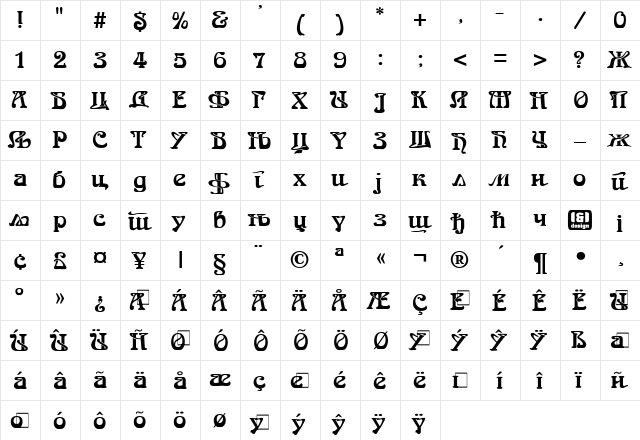
ArnoldBoecklinCIrilica Regular
Design Context for ArnoldBoecklinCIrilica Typeface
ArnoldBoecklinCIrilica is a composed and adaptable typeface that performs quietly and consistently across a wide range of design contexts.